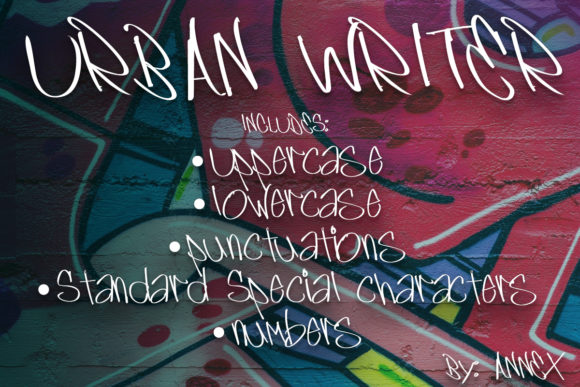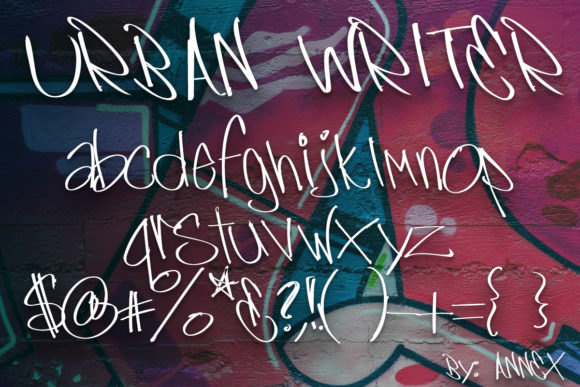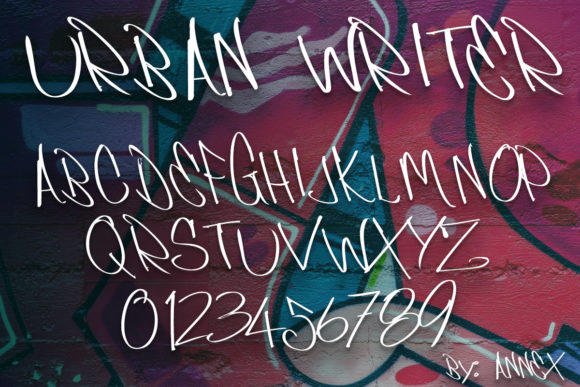
Urban Writer Font
About Urban Writer Font
Urban Writer is a fun handwritten font with that classic urban style, perfect for taking any hipster-themed project to the next level.